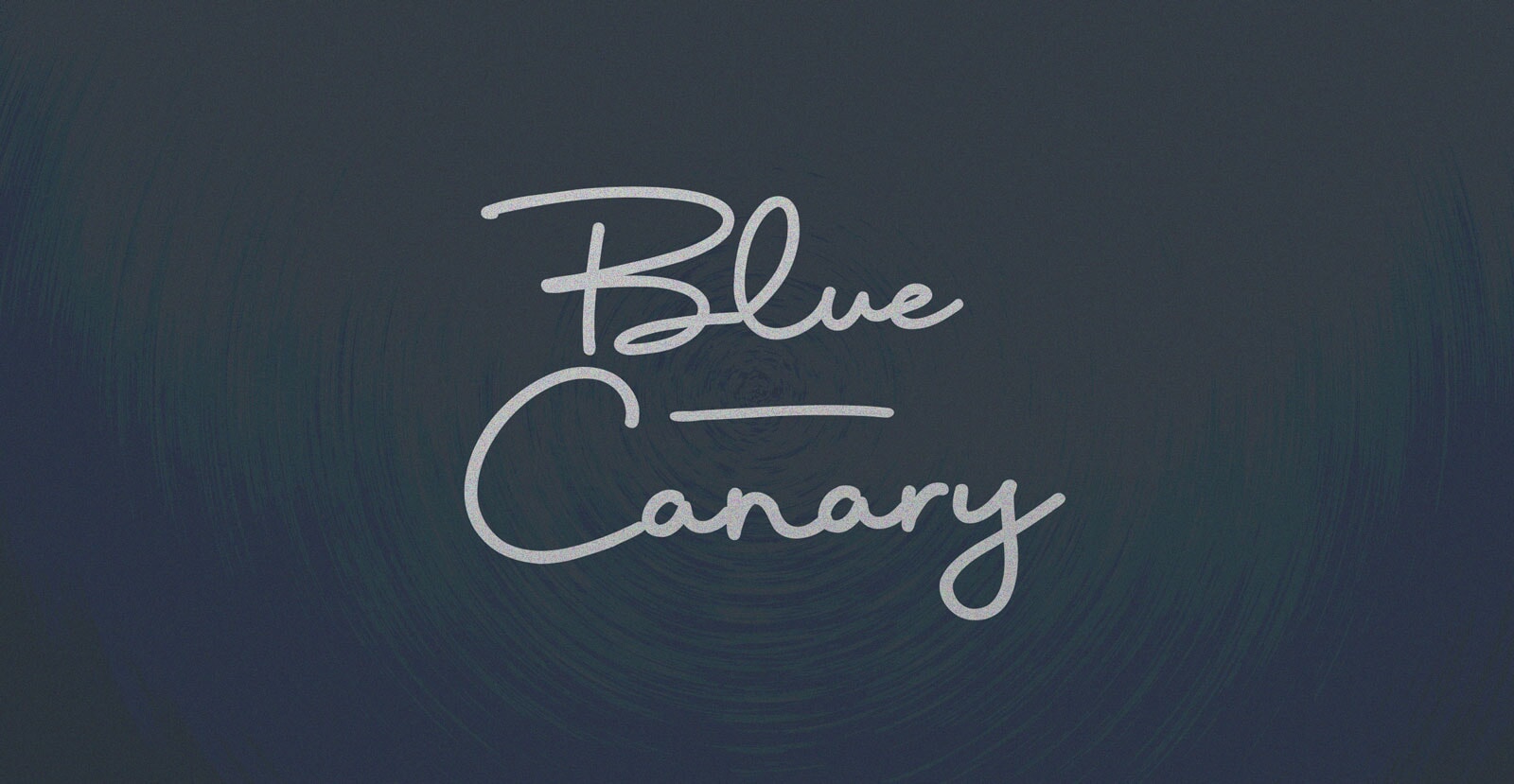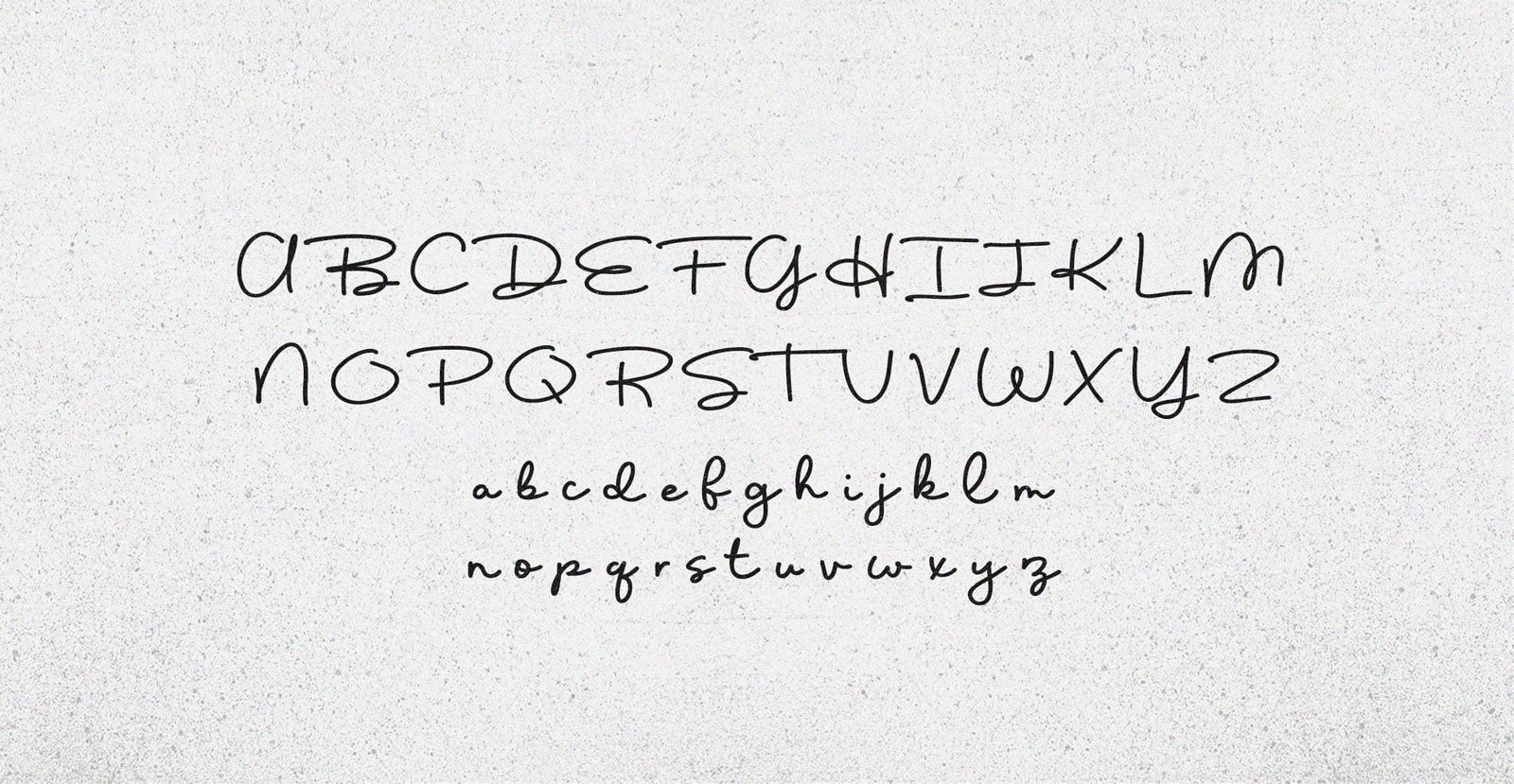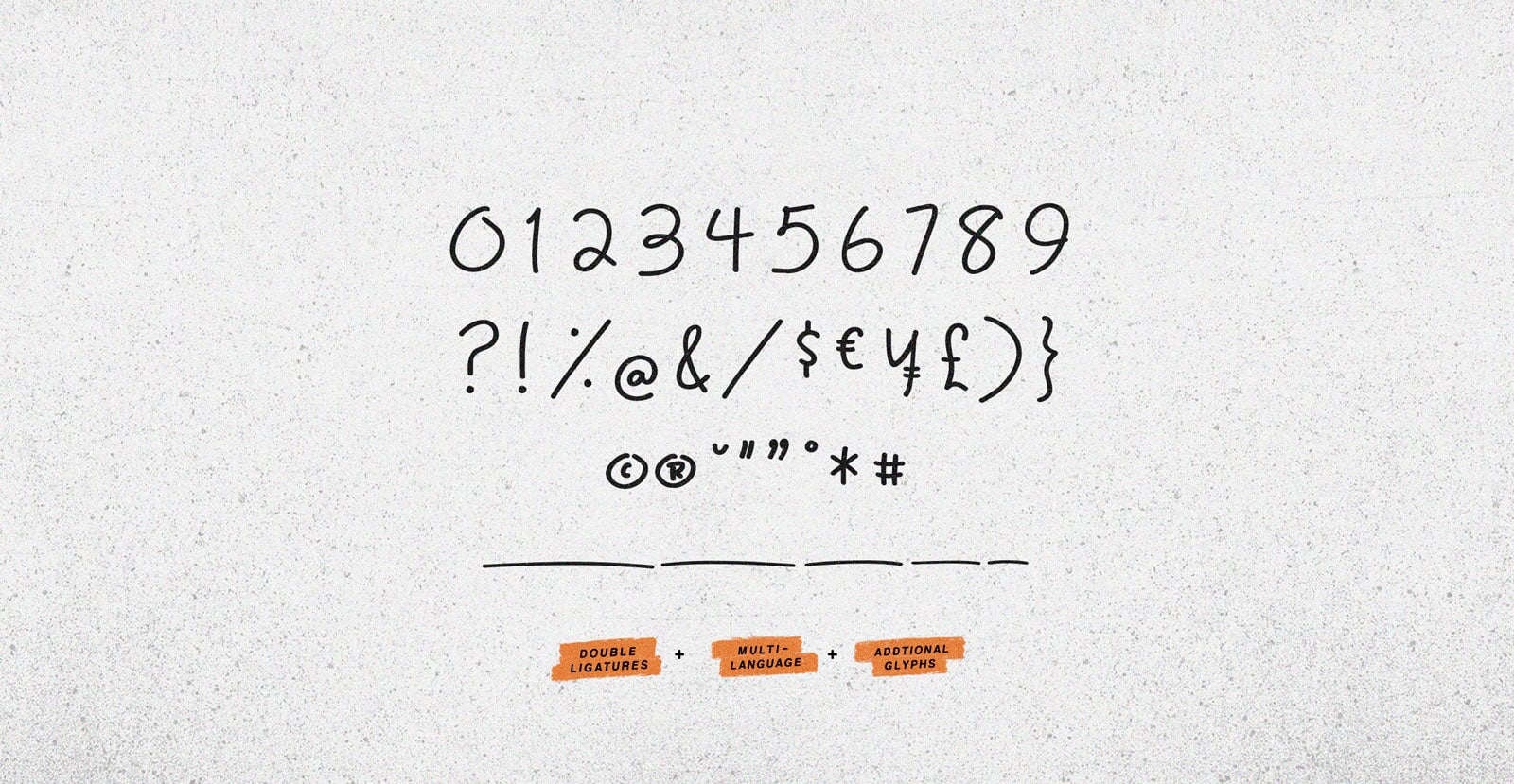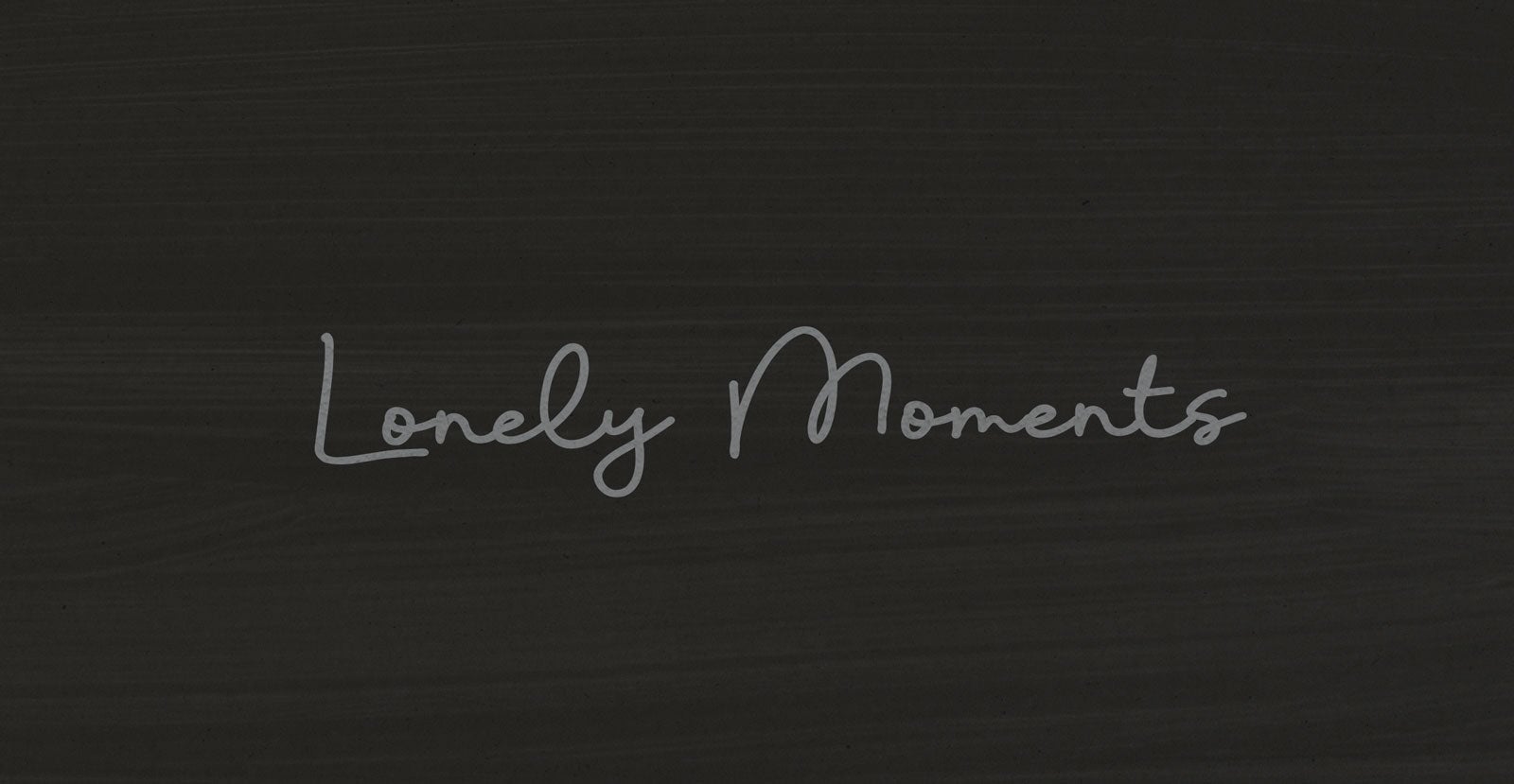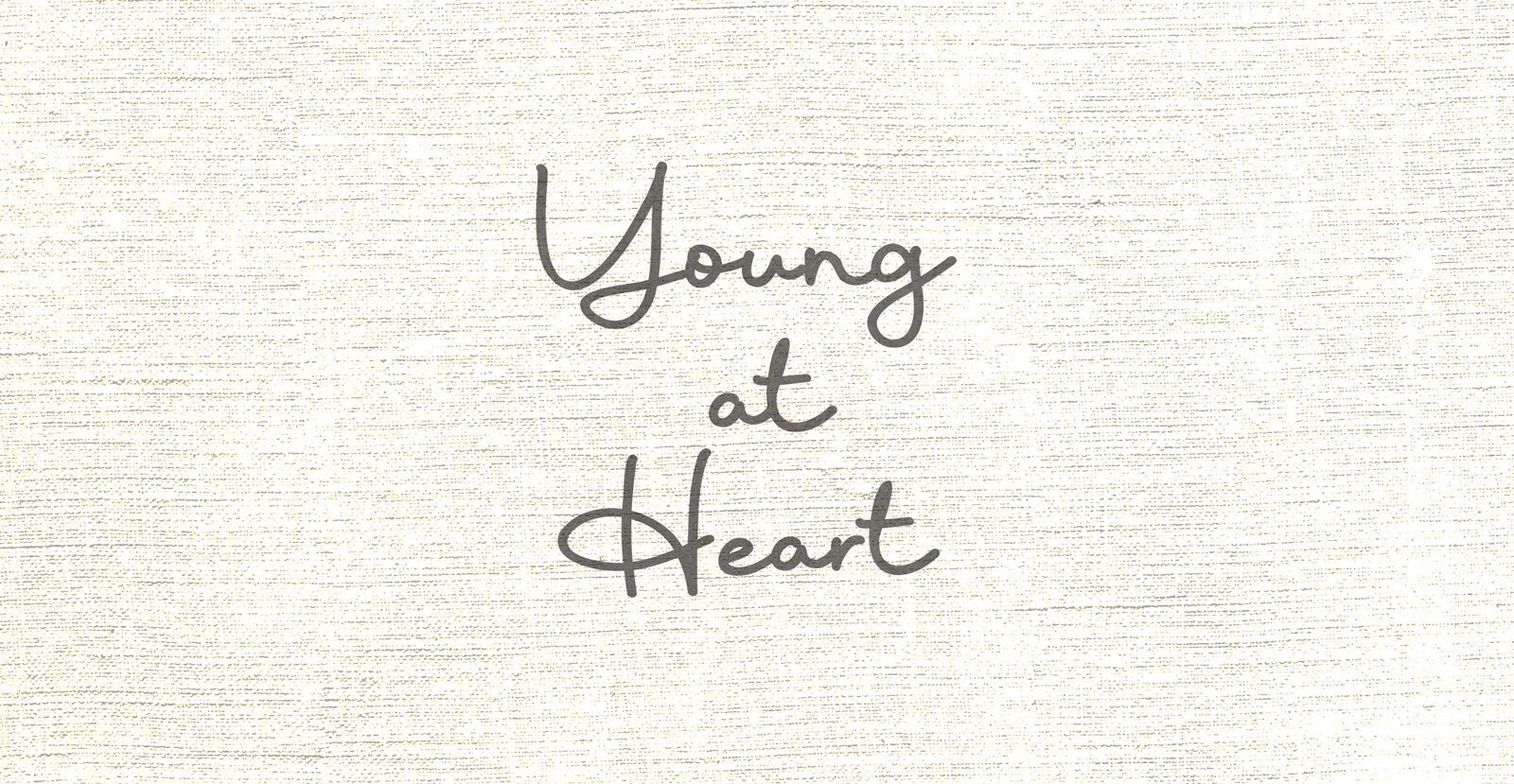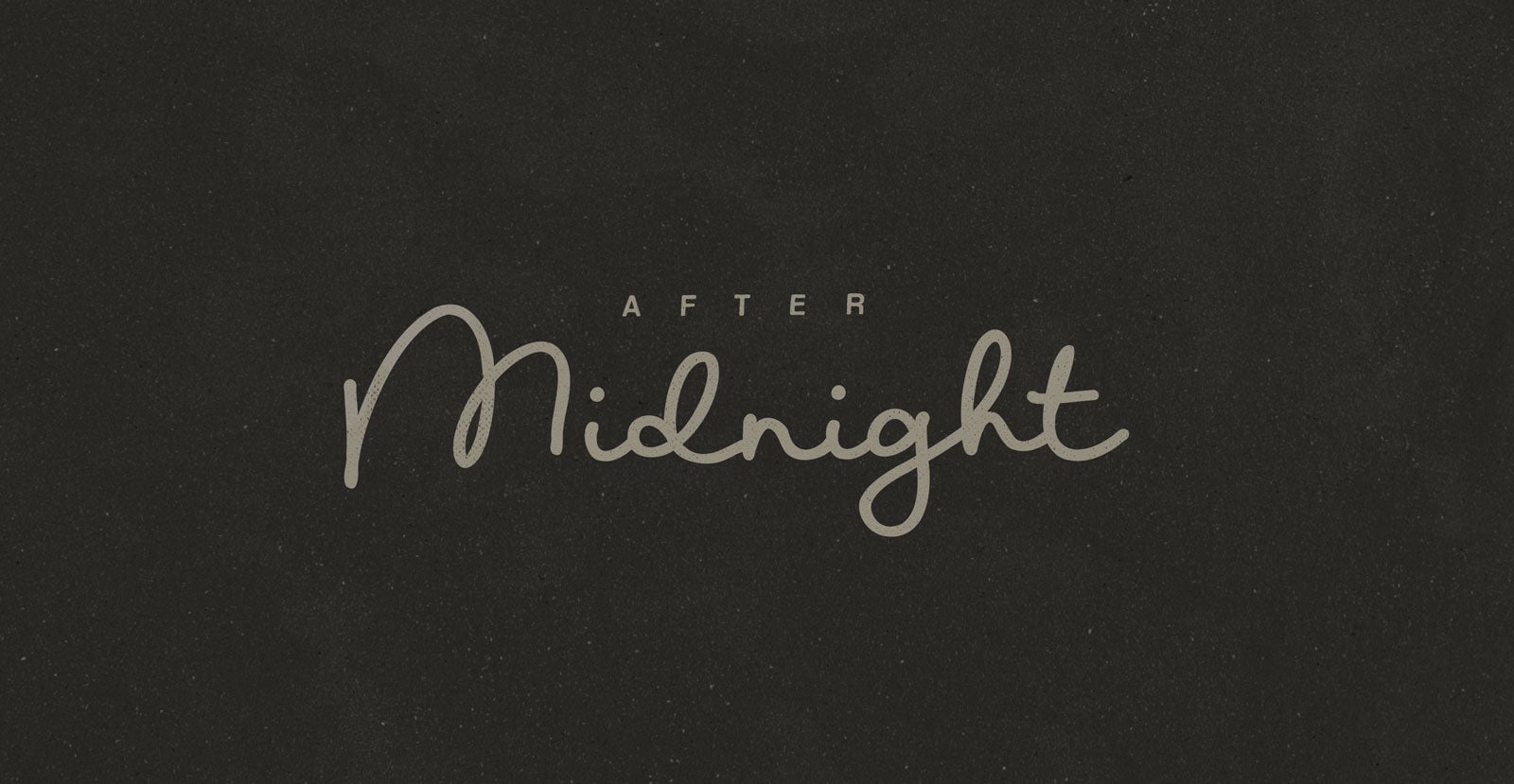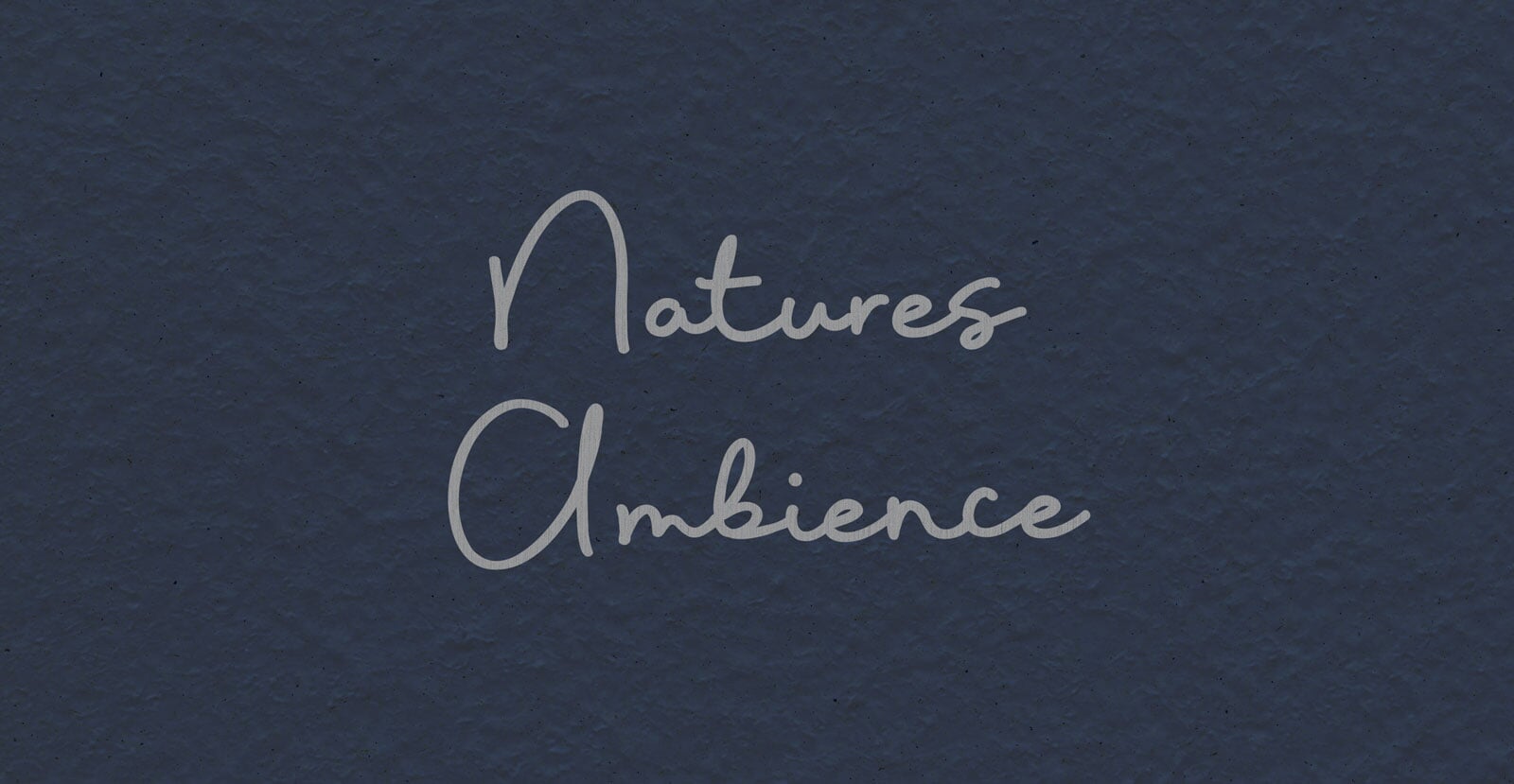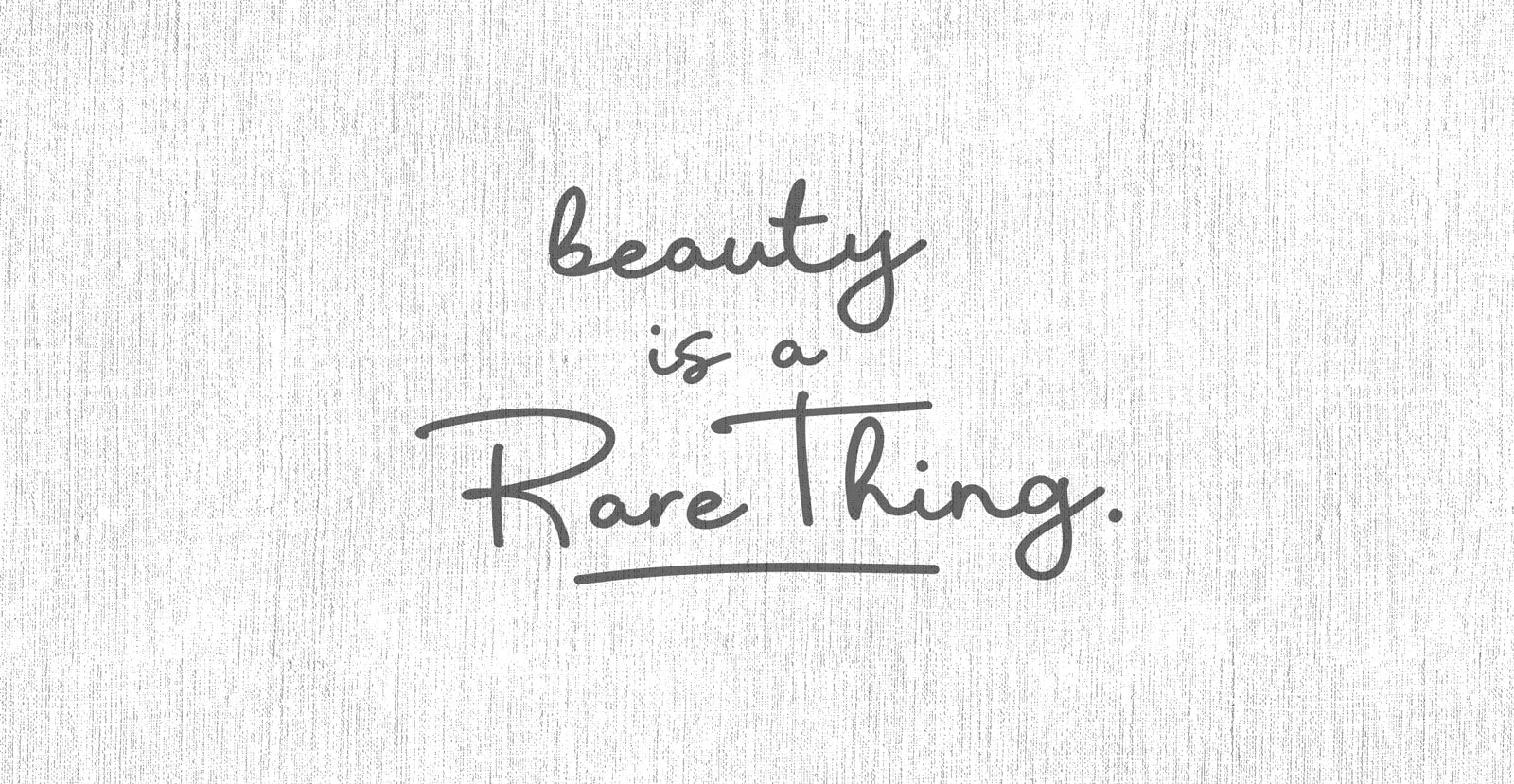
Blue Canary
Handwritten Pen Script Font
Blue Canary glows quiet in the dark, gentle, and just a little offbeat. It hums with a kind of knowing, light enough to drift but sharp enough to signal. A small flame in a strange room, steady and bright.